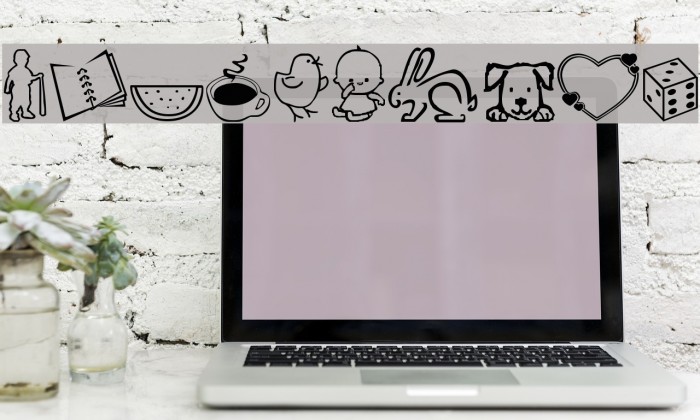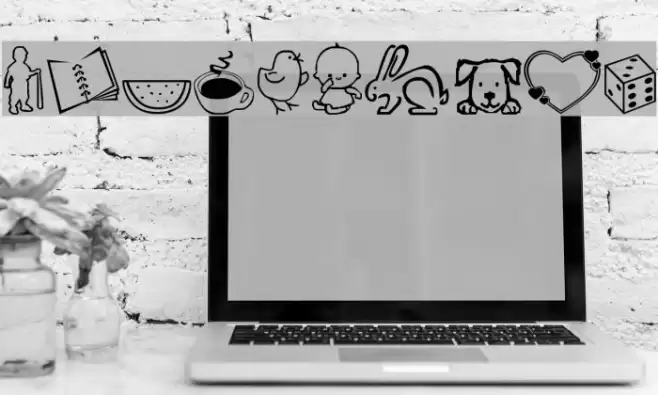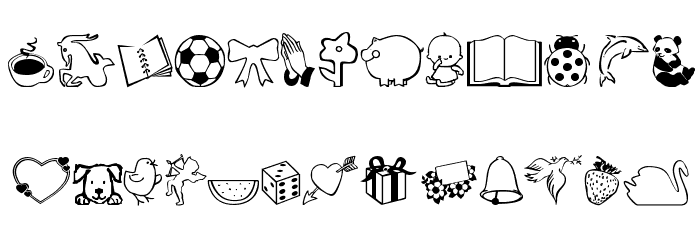
ScrapiCons Font
ScrapiCons Description
A playful dingbat font featuring a variety of hand-drawn icons such as animals, objects, food, and celebratory symbols, all outlined in a cartoonish, whimsical style with consistent line weight and minimal shading.
Hand-drawn icon dingbat font with playful, cartoon-style illustrations from Images & Symbols fonts.
- Proposed Projects: Children's educational materials, scrapbooking, greeting cards, playful branding, decorative lists.
- Overall Style: Playful, Whimsical, Decorative
- Use Case: Icons, Decorative elements, Scrapbooking, Kids' projects